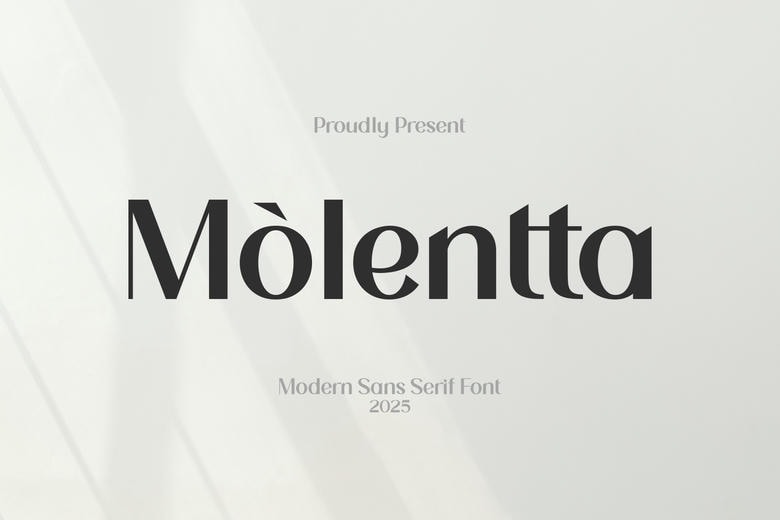
Molentta Font
Molentta is a modern sans-serif font of 2025. The font is a very elegant looking, high-contrast design, which incorporates minimalist style with slightly traditional luxury look, allowing it to be used in high-end branding and editorial applications.